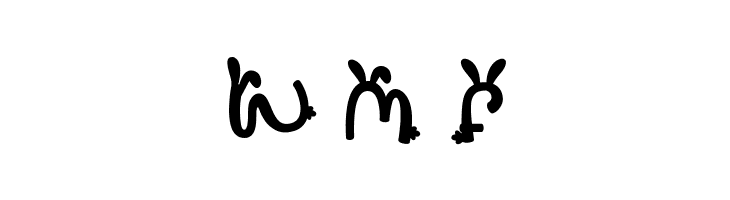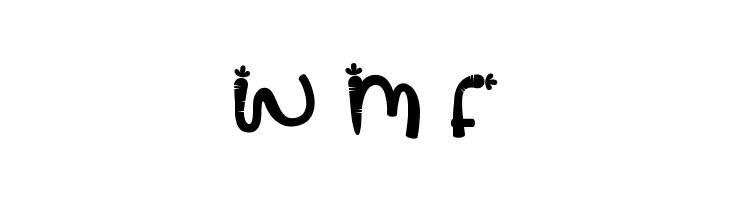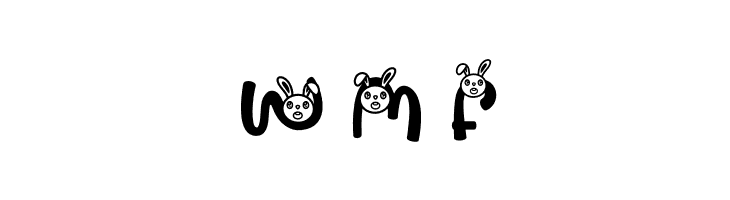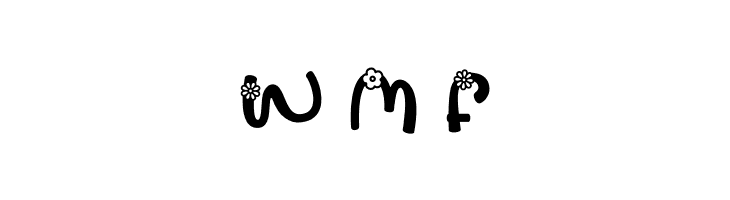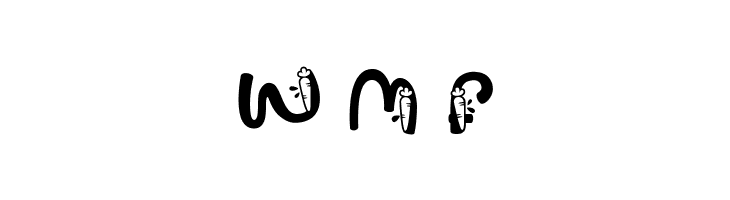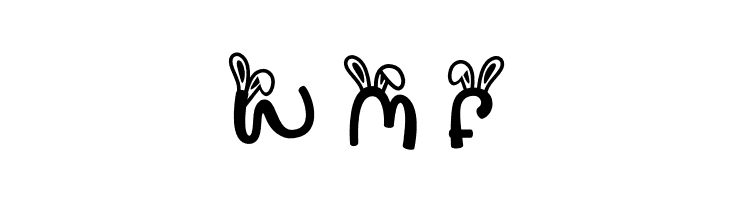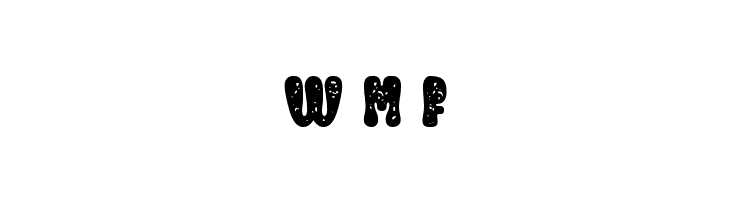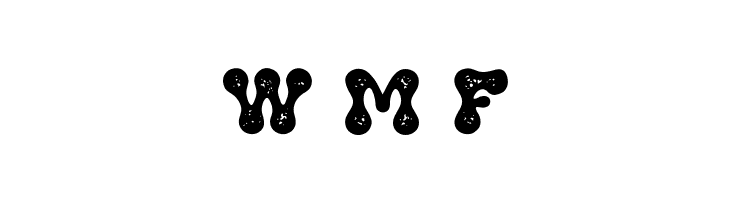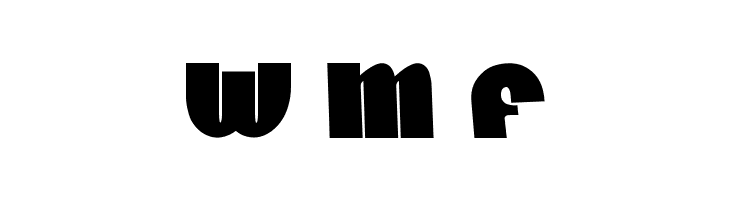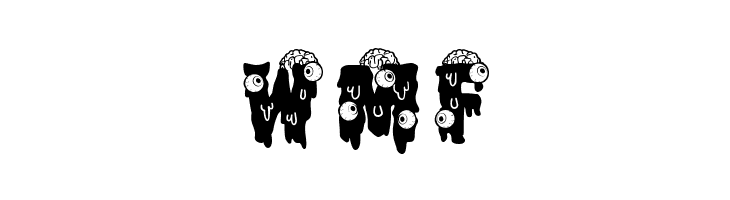
A whimsical, Nordic-inspired decorative font with intricate patterns.
A whimsical, decorative font with intricate patterns and playful designs.
A bold, decorative font with whimsical patterns and a hand-drawn feel.
A playful, bunny-themed decorative font with bold, rounded characters.
A playful, carrot-themed decorative font with bold, rounded characters.
A playful, ornamented font with intricate patterns and festive motifs.
A playful font with each character featuring a cute bunny face, perfect for fun and creative projects.
A playful, flower-adorned font with bold, rounded characters.
A playful, carrot-themed decorative font with bold, rounded characters.
A playful font with bunny ear embellishments, perfect for festive and cheerful designs.
A bold, playful font with rounded, bubbly characters perfect for fun projects.
A bold, playful font with a bubbly, textured appearance.
A bold, playful font with thick, rounded strokes and a bubbly appearance.
A bold, playful font with a shadow effect and rounded, irregular characters.
A playful, textured font with bold, rounded characters and a speckled pattern.
A playful, bold, and outlined font with a hand-drawn, cartoonish style.
A bold, distressed slab serif font with a vintage, rugged appearance.
A playful, bold font with rounded, bubbly characters and a whimsical style.
A playful, textured font with a bold, whimsical design.
A bold, rounded font with a blocky, playful style.
A bold, wavy font with a playful and dynamic style.
A bold, playful font with rounded, bulbous shapes and a whimsical style.
A bold, playful font with thick, rounded strokes and a whimsical style.
Decorative font with cat-themed characters.
Whimsical hand-drawn font with gothic elements.
A quirky, monster-themed decorative font with jagged edges and expressive faces.
Distressed, jagged display font with a spooky, chaotic look.
A bold, dripping horror-themed decorative font.
Spiky, gothic display font with bold, dramatic shapes.
A bold, dripping horror display font with cartoon brains and eyes.
Bold decorative font with festive star patterns and strong outlines.
Festive, bold display font with Santa-themed decorations.
Festive, bold display font with snowflake and star decorations.
Festive, cookie-themed decorative font with bold, whimsical shapes.
A decorative, high-contrast script with ornate, flowing letterforms.